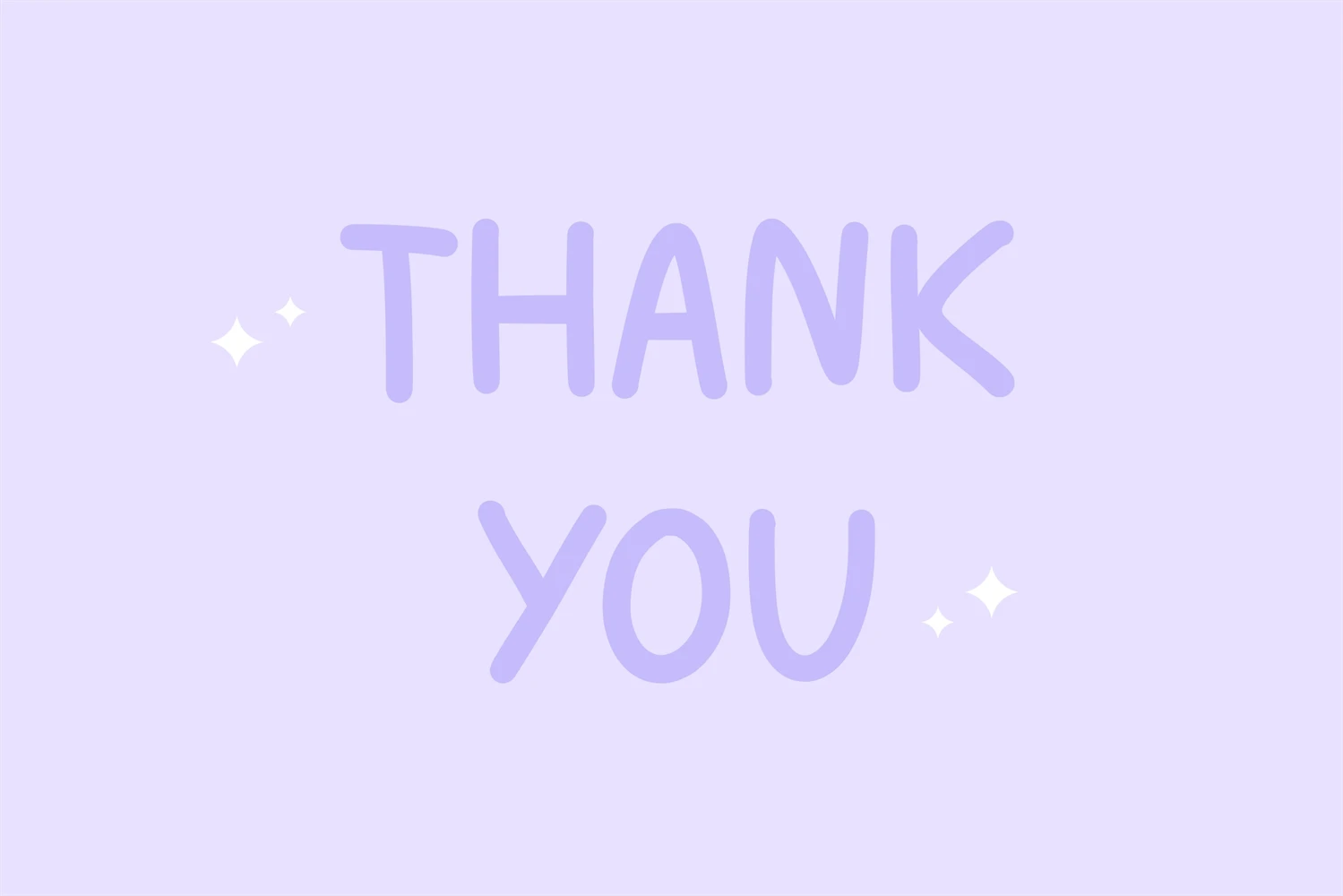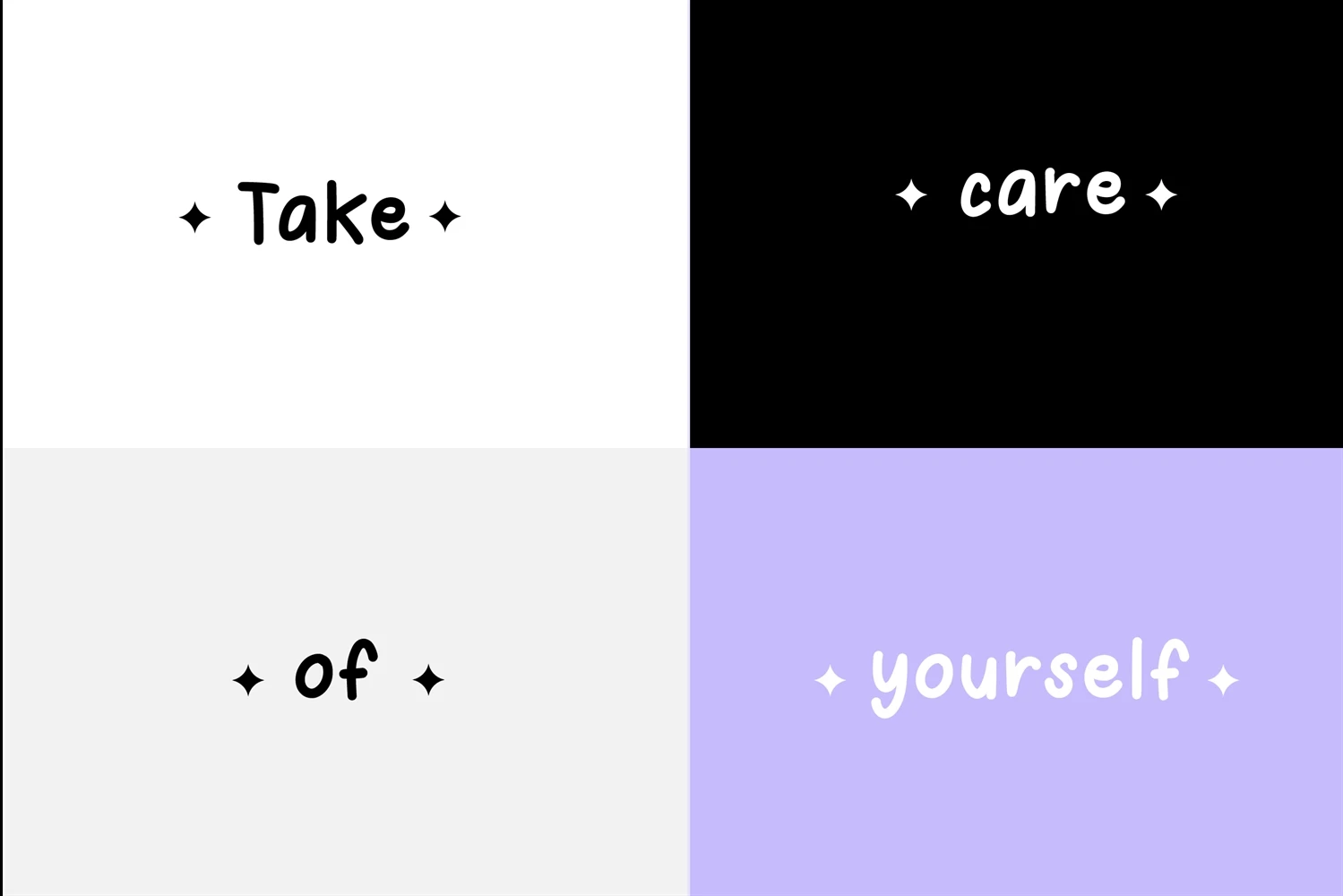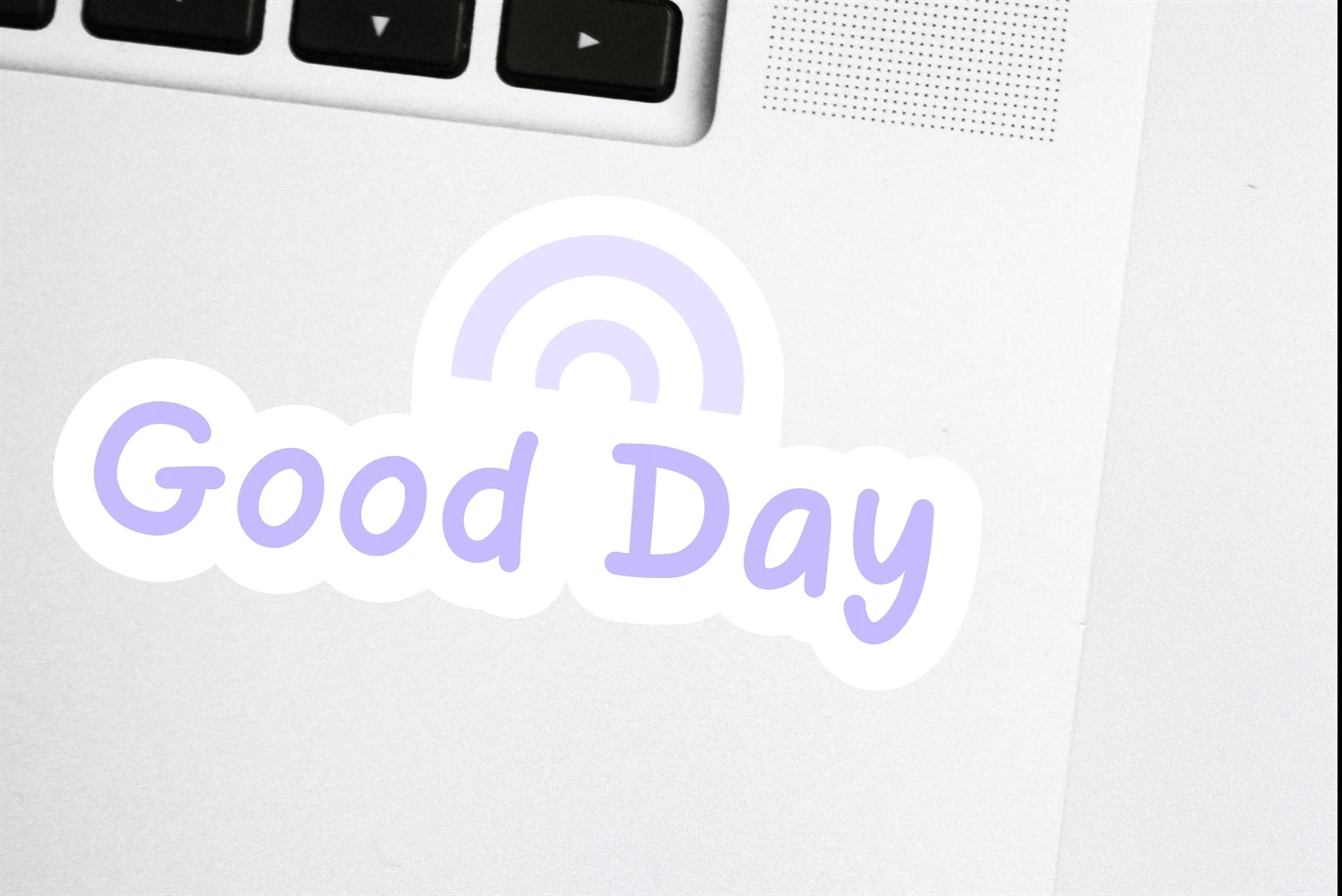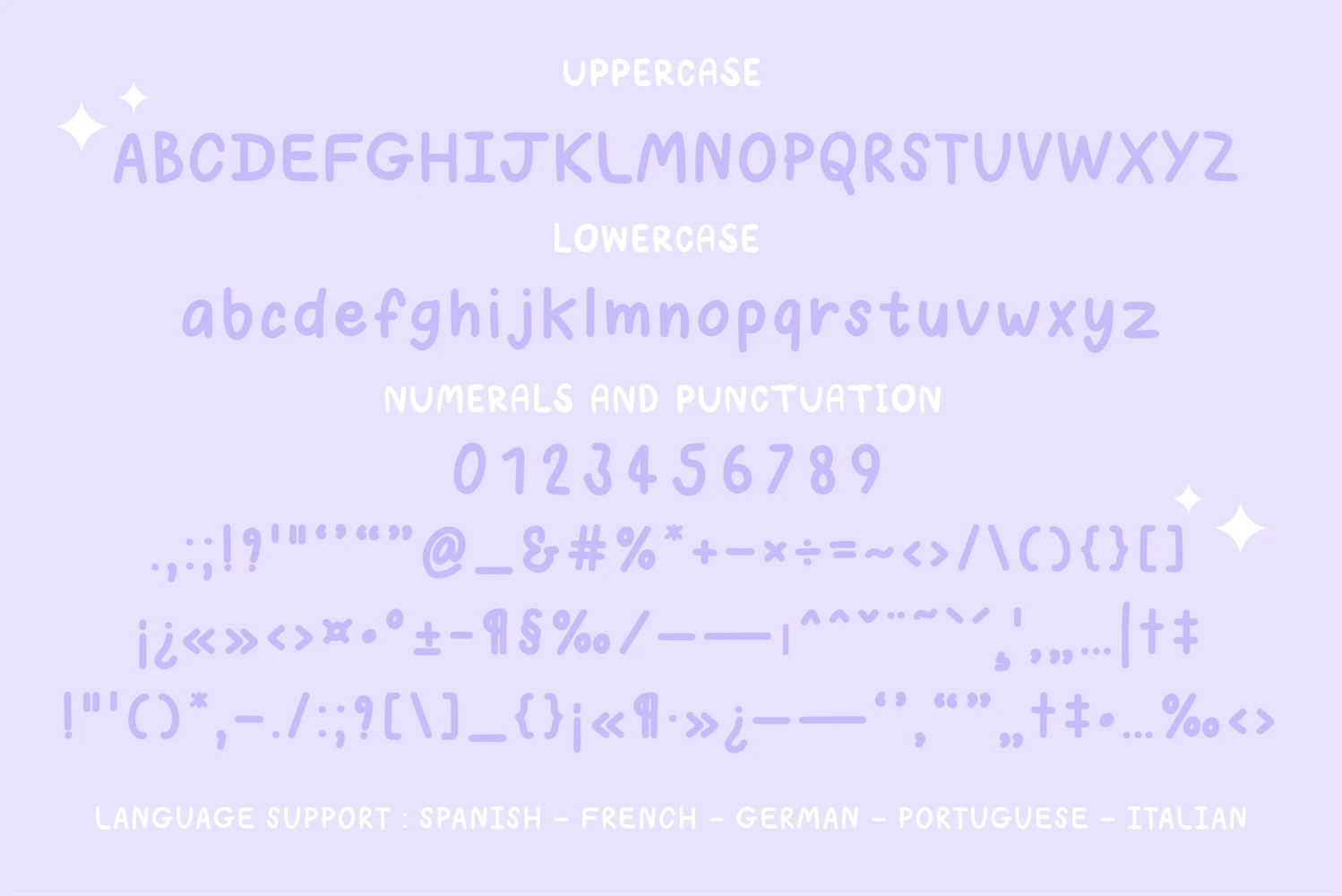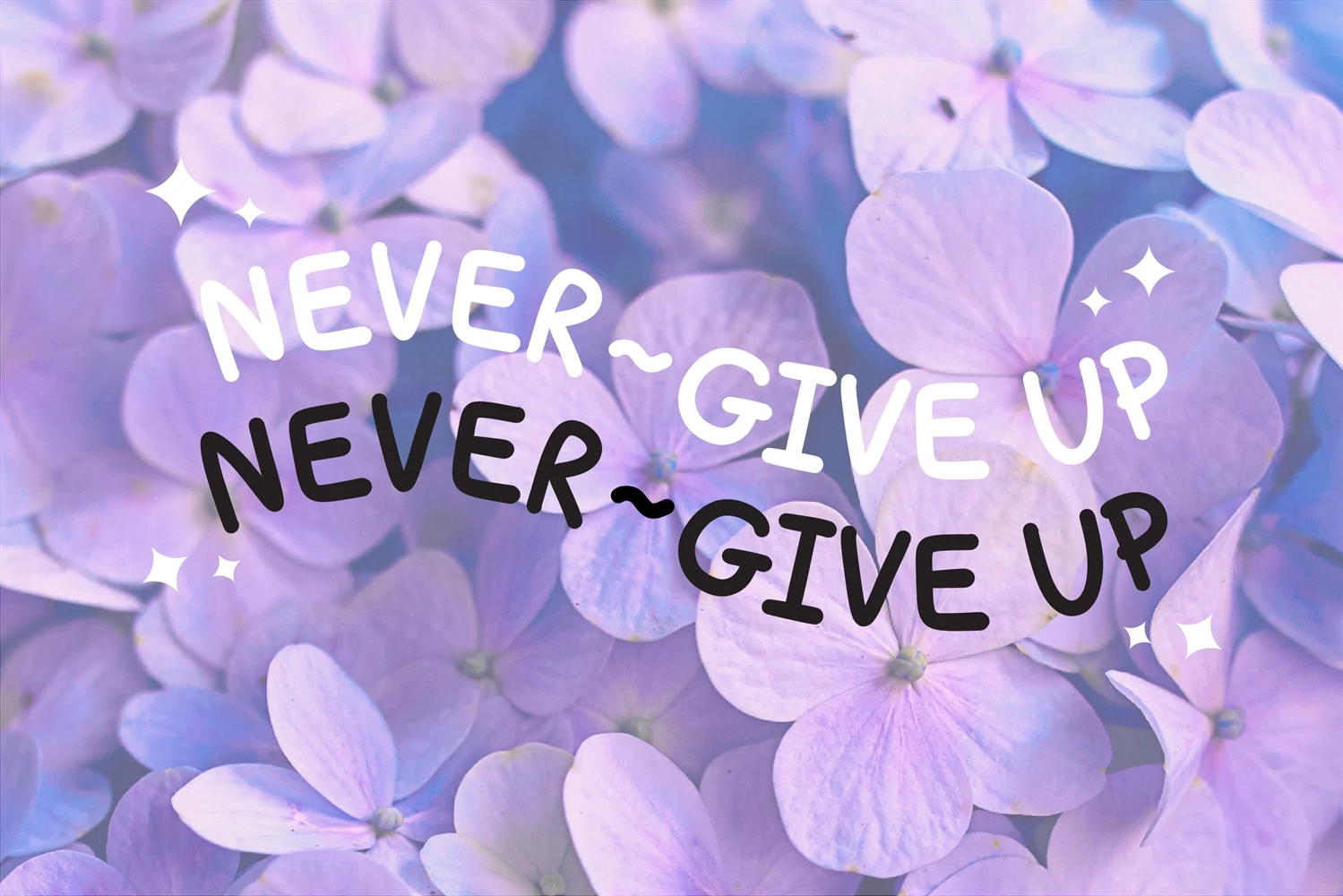
Dumb Phone is a fun and easy-going script font thats perfect for any casual project. This cute and playful font features smooth and flowing lines, making it ideal for adding a touch of charm to your designs. Its relaxed and informal feel is sure to make your message stand out with its approachable and friendly tone.